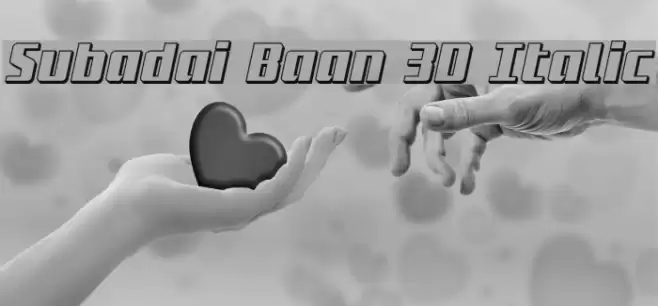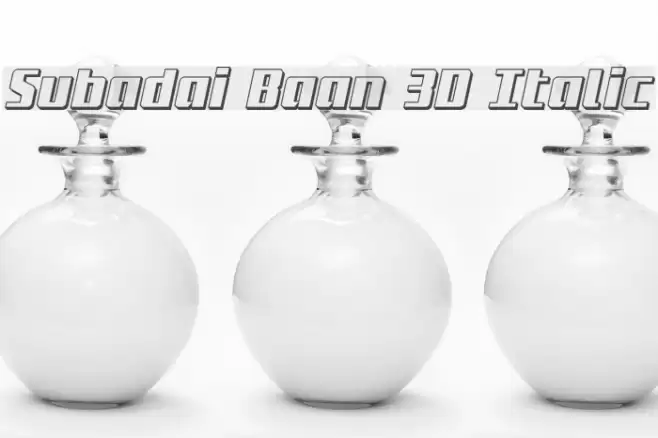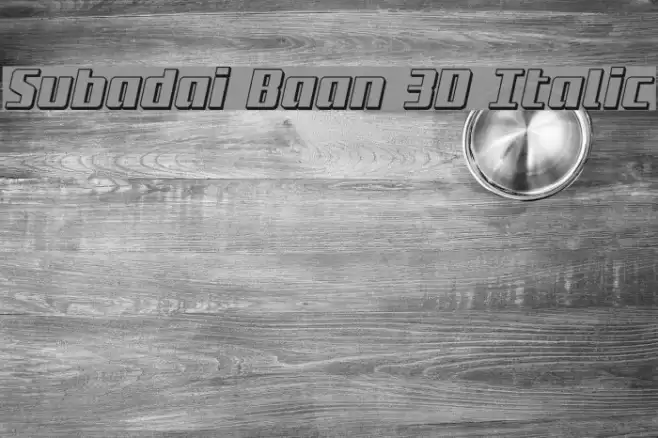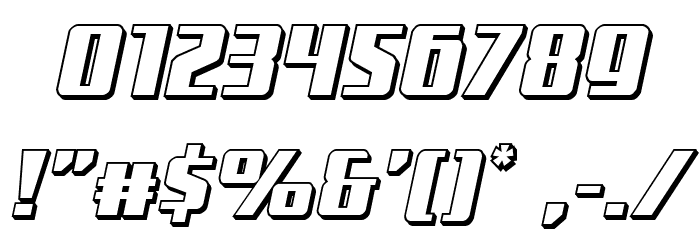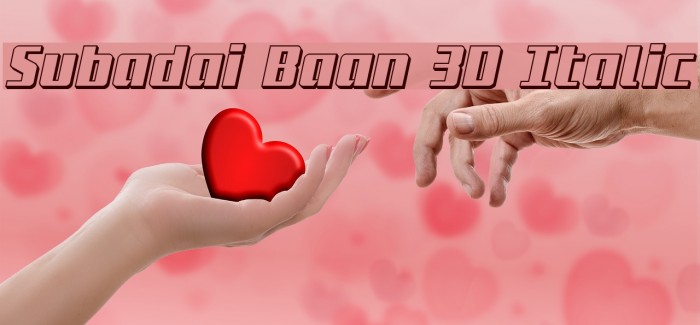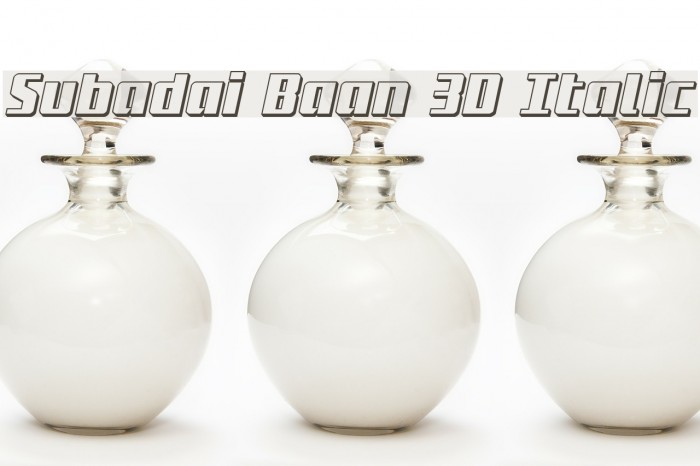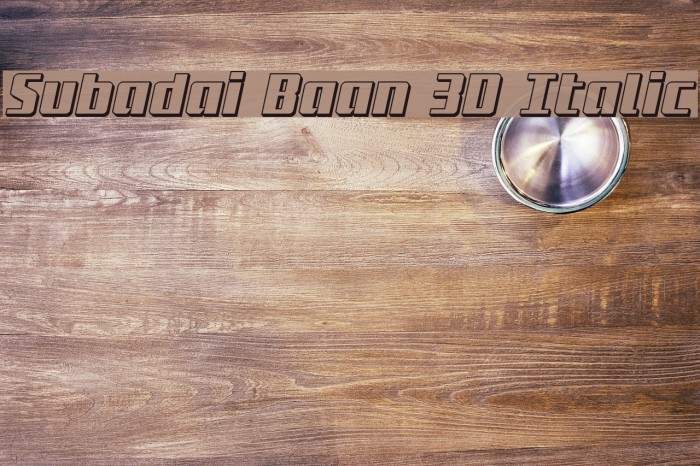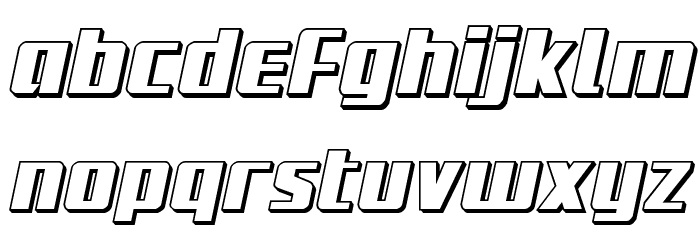
Subadai Baan 3D Italic Font
Subadai Baan 3D Italic Description
This font features a bold, three-dimensional appearance with a distinct italic slant. The characters are outlined, giving them a striking, shadowed effect that enhances their depth and dimensionality. The uppercase and lowercase letters maintain a consistent style, with angular edges and a geometric structure. The numerals and special characters follow the same design principles, ensuring uniformity across the font. This style is particularly eye-catching and modern, making it suitable for projects that require a bold statement.
A bold, 3D italic font with outlined characters and a modern, geometric style from Uncategorized fonts.
- Proposed Projects: Ideal for use in posters, headlines, logos, and any design that requires a bold, eye-catching font.